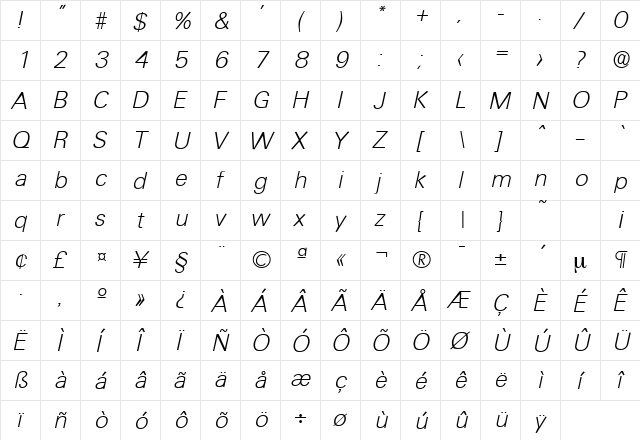
Ultimate-Serial-ExtraLight RegularItalic Font Preview
Design Context for Ultimate-Serial-ExtraLight Typeface
Ultimate-Serial-ExtraLight takes a measured approach to typography — its balanced proportions and neutral character make it a reliable workhorse for both digital and print work. The dynamic lean of this cut emphasises speed and emphasis in any layout. Its slender proportions lend an understated elegance to any composition.
Pro Tip: Use Ultimate-Serial-ExtraLight for emphasis, pull quotes, and subheadings where its slanted energy can add rhythm to the layout.